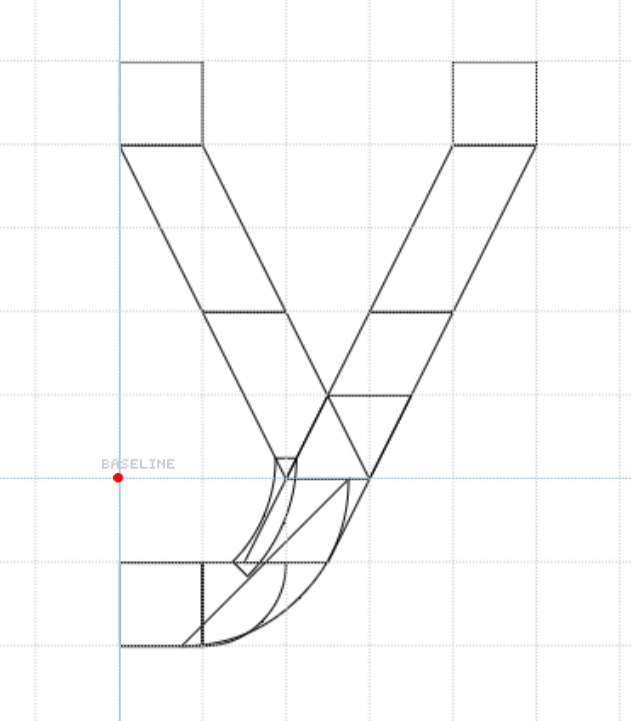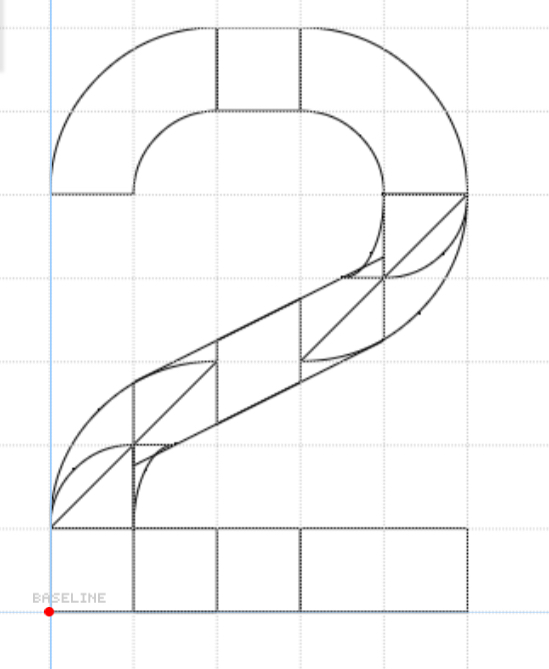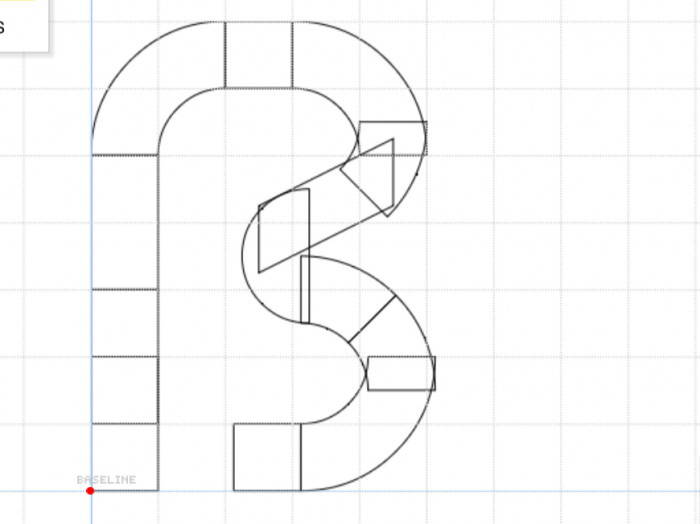
• Monospaced font for coding
It can type 3 scripts:
Latin, Greek, Cyrillic
Coming soon:
Armenian, georgian & hebrew
The outline of the y
The outline of the number 2 (A lot of composites)!
It doesn't look very smooth but it's okay
The sample version is better